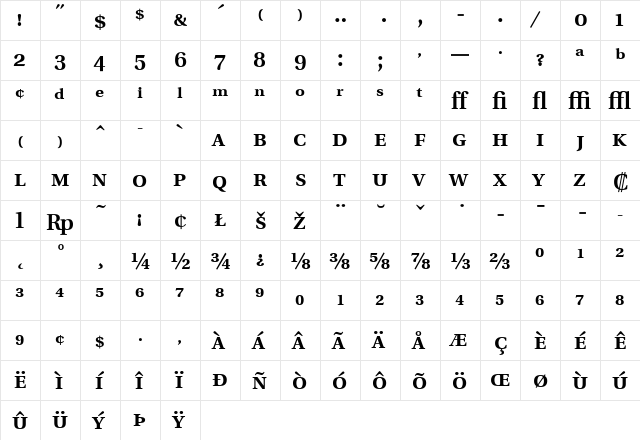
UtopiaExp Bold
Design Context for UtopiaExp Typeface
UtopiaExp is a composed and adaptable typeface that performs quietly and consistently across a wide range of design contexts. The heavy weight commands attention and anchors typographic hierarchies.